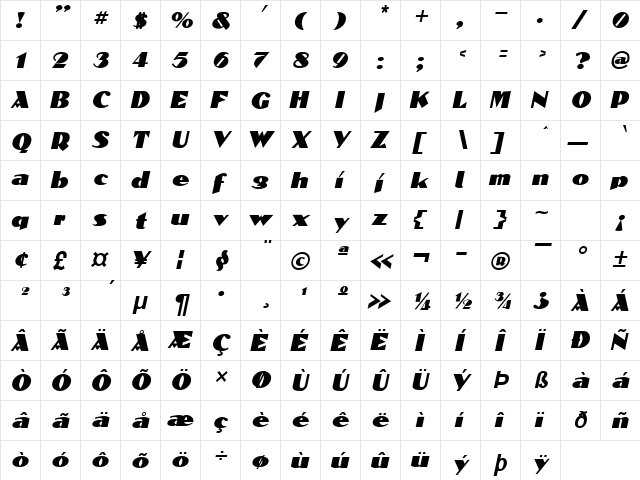
Constantine Italic
Design Context for Constantine Typeface
Constantine offers clean, dependable letterforms without strong stylistic allegiance, making it a practical choice for designers who need flexibility. Its italic angle brings a sense of urgency and motion to the letterforms.
Pro Tip: Use Constantine for emphasis, pull quotes, and subheadings where its slanted energy can add rhythm to the layout.